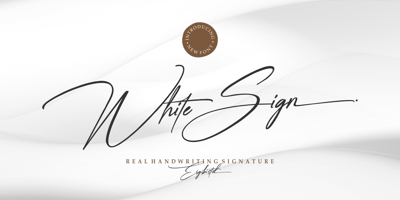
White Sign Font Family was designed by Riyadh Rahman and published by Ergibi Studio. White Sign contains 1 styles and family package options. White Sign is Real Handwritting font presentation from Ergibi Studio. Inspired by beautiful writing that has a luxurious feel with additional swash lines perfect for branding, photography, invitations, quotes, watermarks, advertisements, product designs, social media posts, stationery, labels, and more!I hope you enjoy this font. If you have any questions please don’t hesitate to drop me a message :)Big Thanks ~ Ergibi Studio